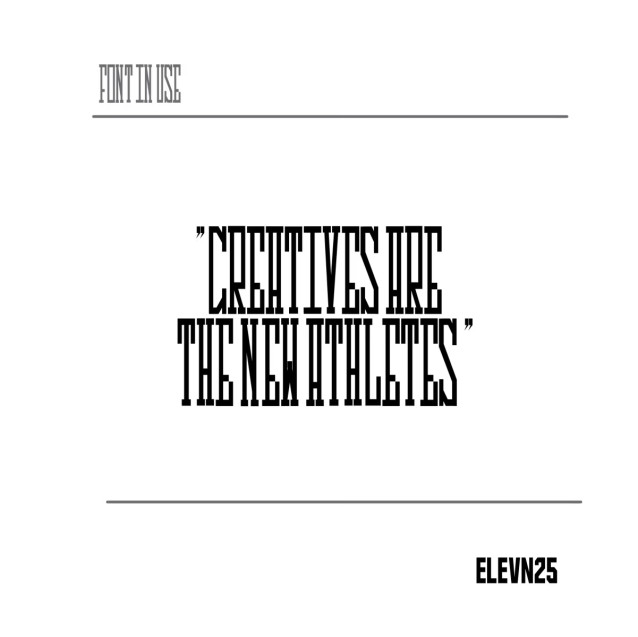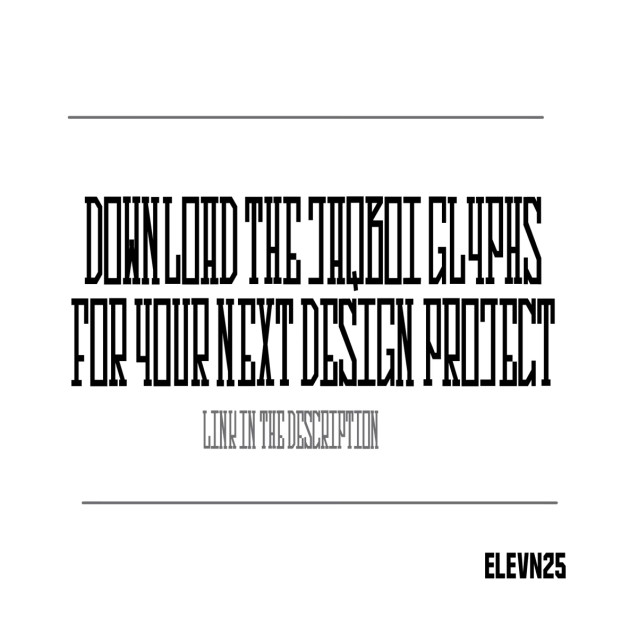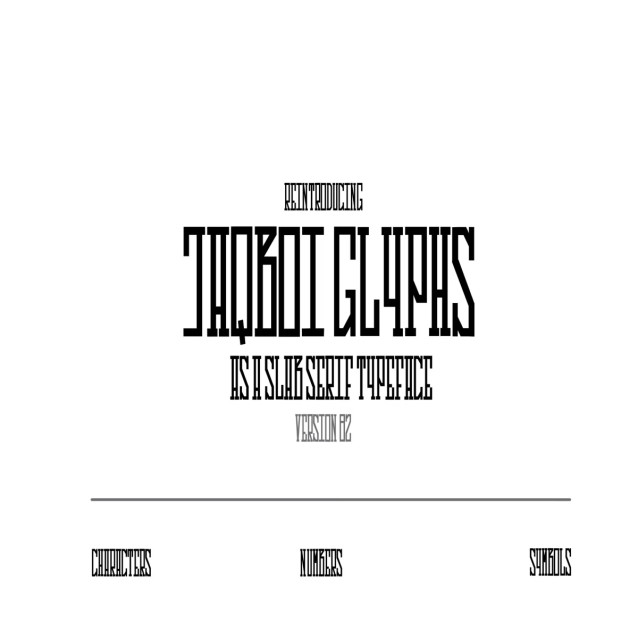
JAQBOI GLYPHS – SLAB SERIF – developed from a display typeface version , this version is reintroducing a slab serif development , building the font to function in headlines , brand identity , flyers , cover art and merch design. This typeface introduces a vintage inspired look , a condensed and sporty personality for you design projects.
JAQBOI GLYPHS – SLAB SERIF Font